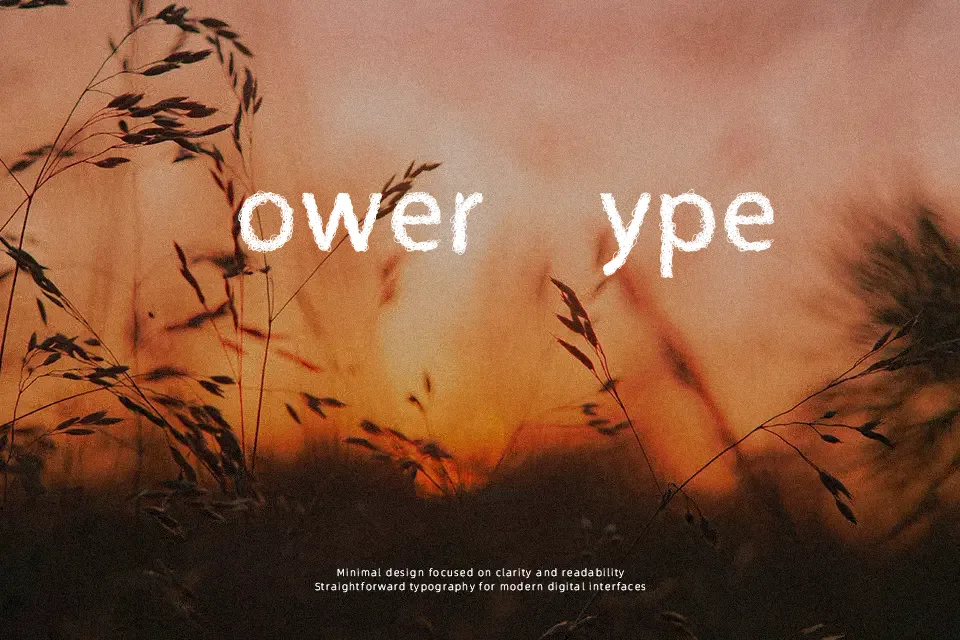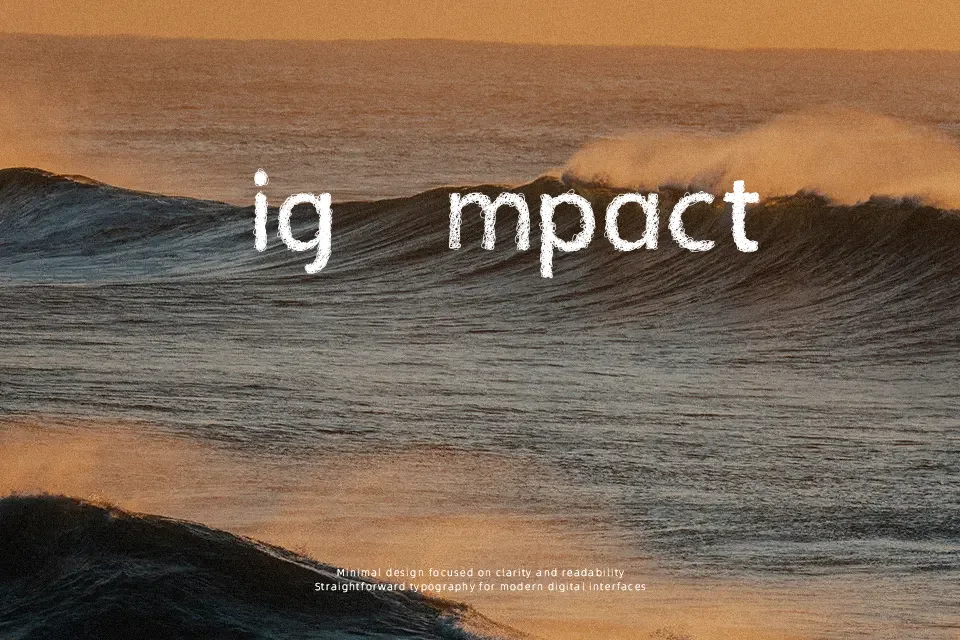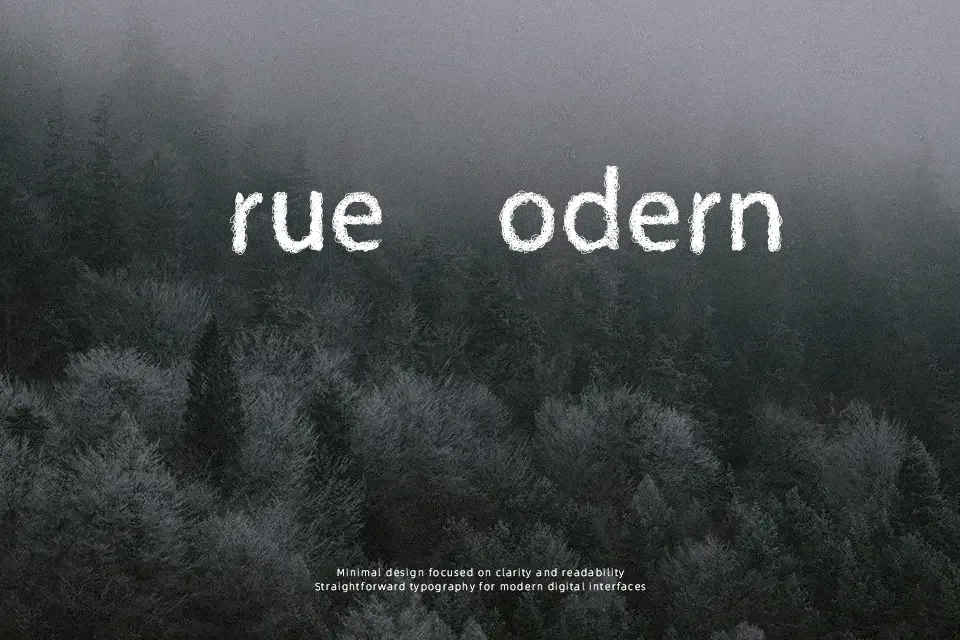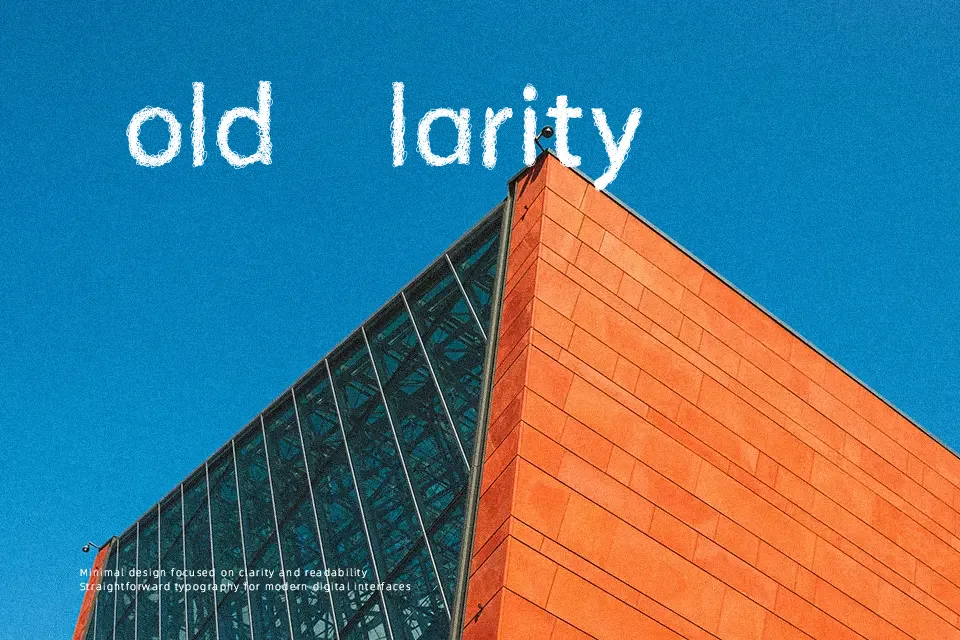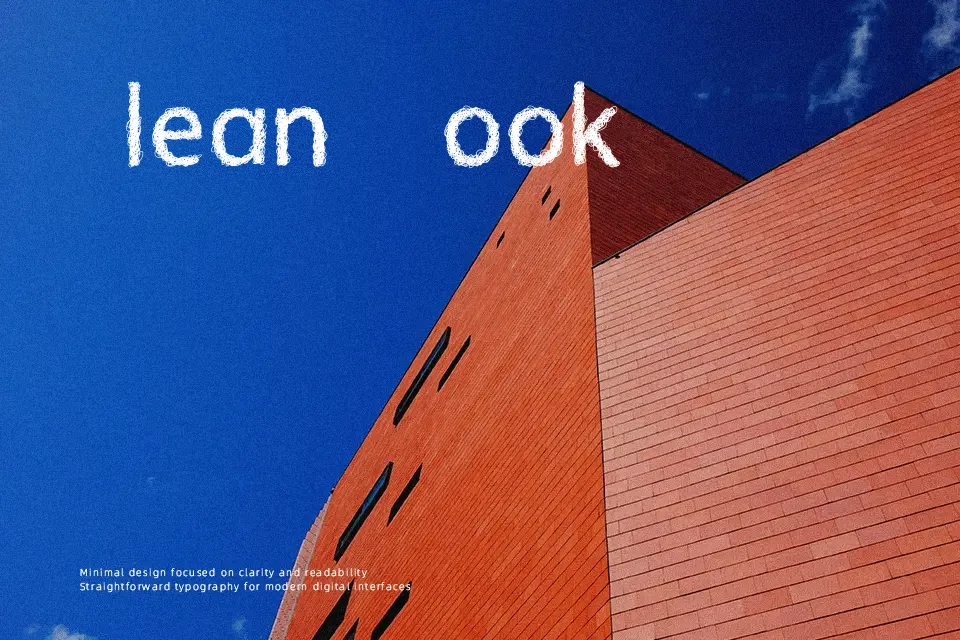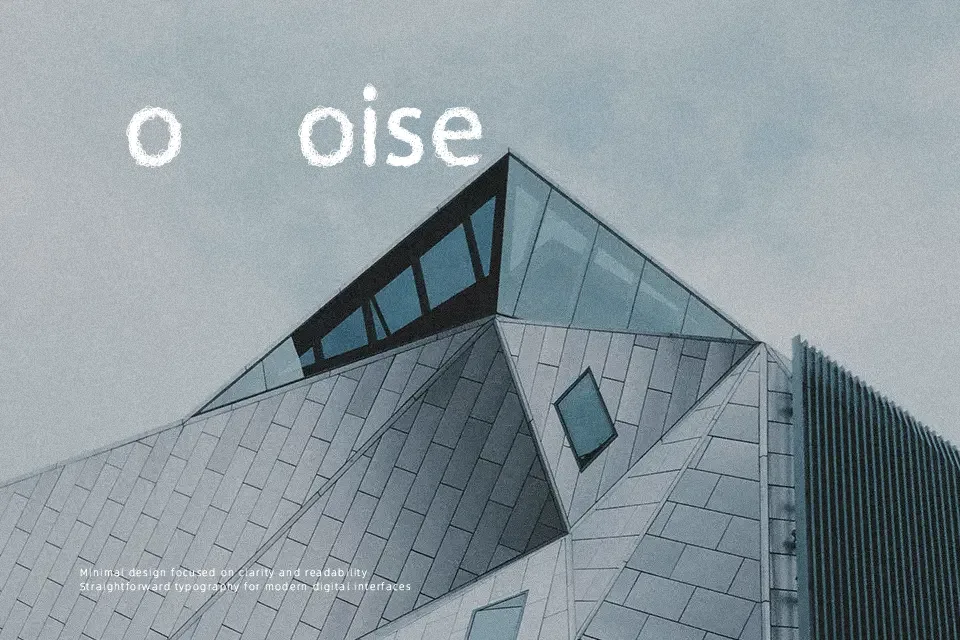
Afro Font
Thick, rounded strokes define Afro Font’s character — each letterform carries a chunky, slightly retro energy that lands somewhere between decorative display and groovy 70s revival. The spacing is generous and the overall structure is loose enough to feel informal without losing legibility at larger sizes. It works well anchoring music festival headers, album covers, or cultural celebration graphics where personality matters more than precision. At smaller sizes, readability drops noticeably, and the playful weight clashes with anything professional or corporate in tone. If your layout calls for a font that commands attention through sheer visual confidence rather than refinement, this one delivers — but only when given room to breathe.
– Music event posters and concert flyers
– Cultural festival or Afrocentric brand headers
– Album cover title treatments
– Social media graphics with bold headline needs
– Body text or any extended reading context
– Corporate or formal documentation
– Layouts requiring tight letter spacing
– Multilingual or non-Latin typesetting
Perfect for headline, logo, and music, with a bold and decorative style.